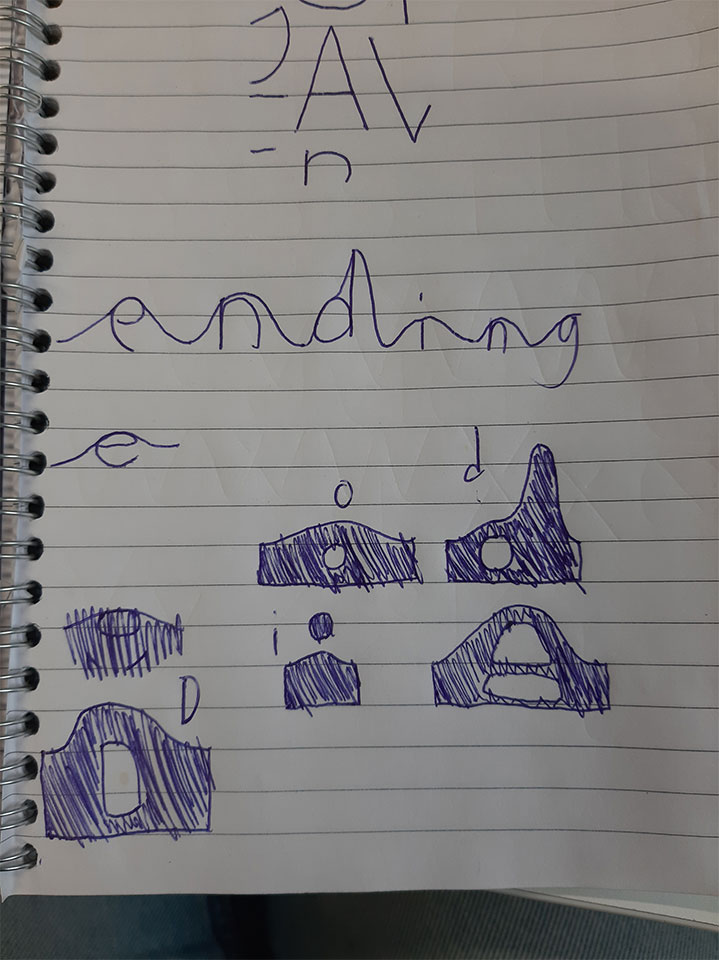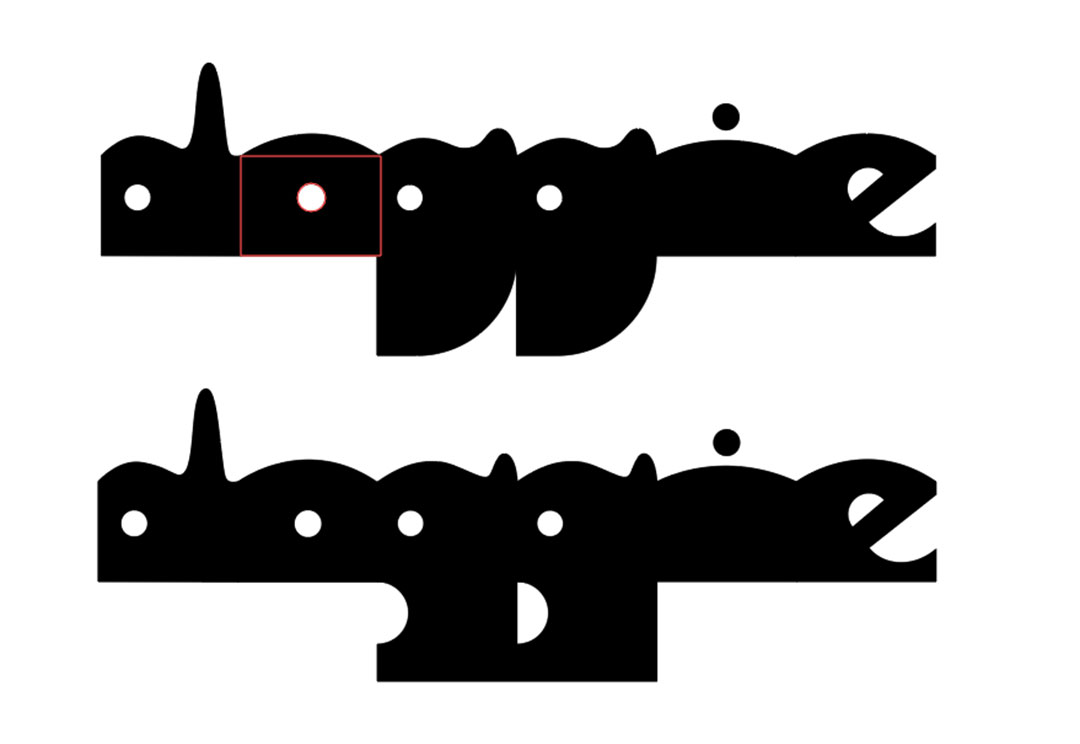
Relief began with the question: what if you made a letter whose upper extent would form a continuous line no matter the word typed? If one were to imagine a small pedestrian trying to navigate type of most kinds, they would plummet into the abyss at the second letter or sooner. Relief wants to evoke in the eye a path one may take over terrain of various elevation, of the earth beneath one's feet, of a sidewalk with too many other people, and they're all walking next to you, and of the heaviness of a hill walked up.